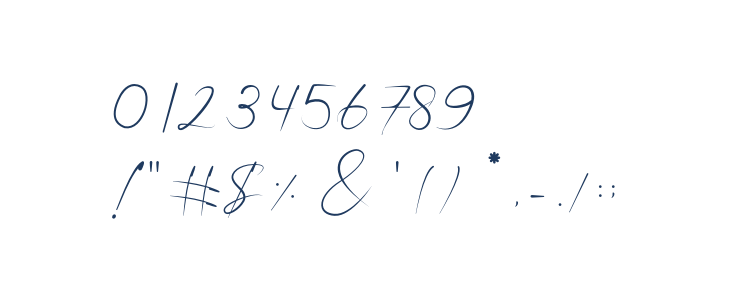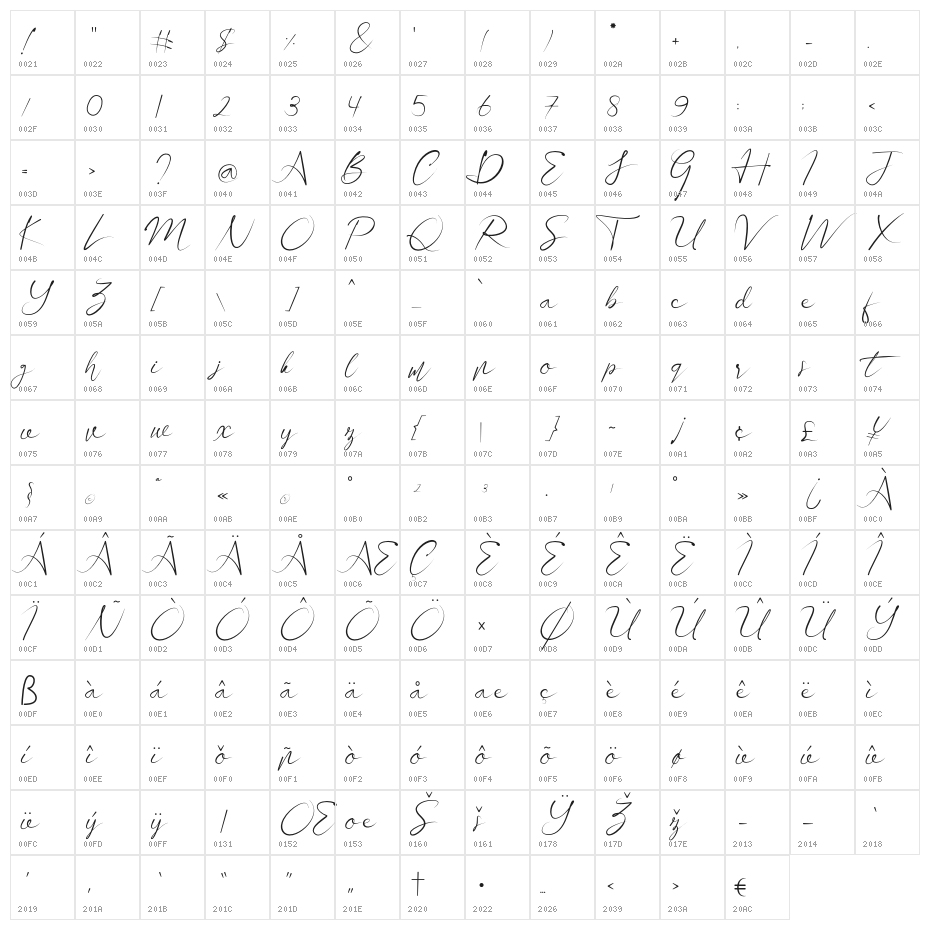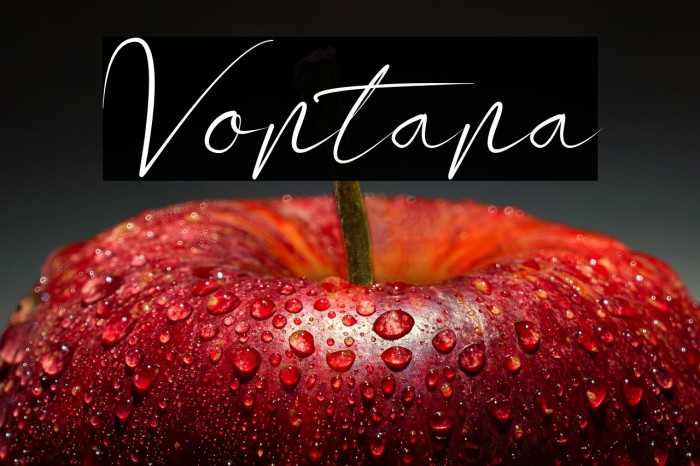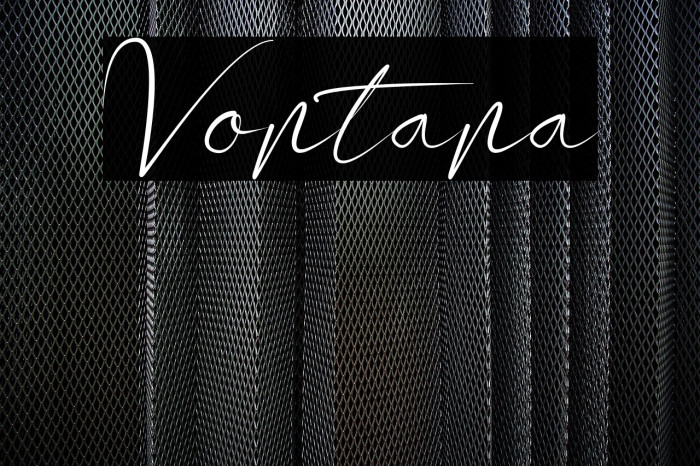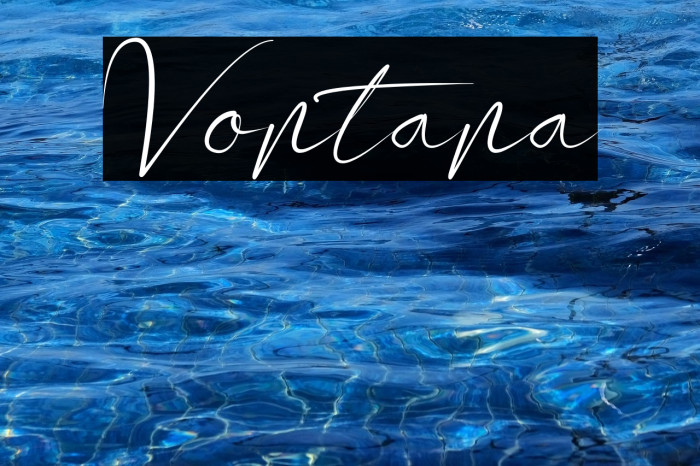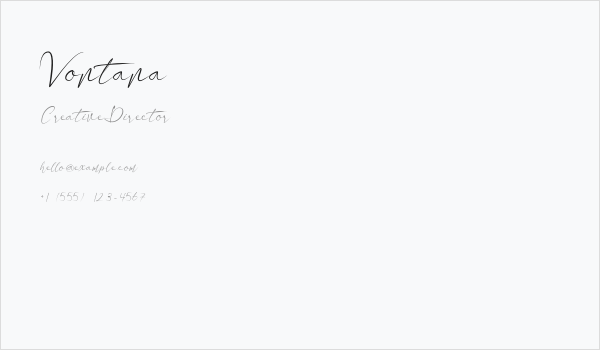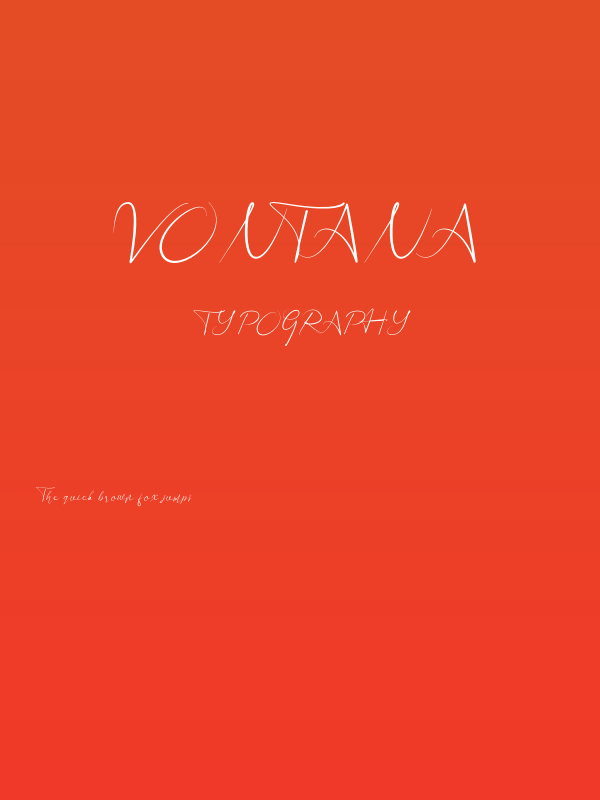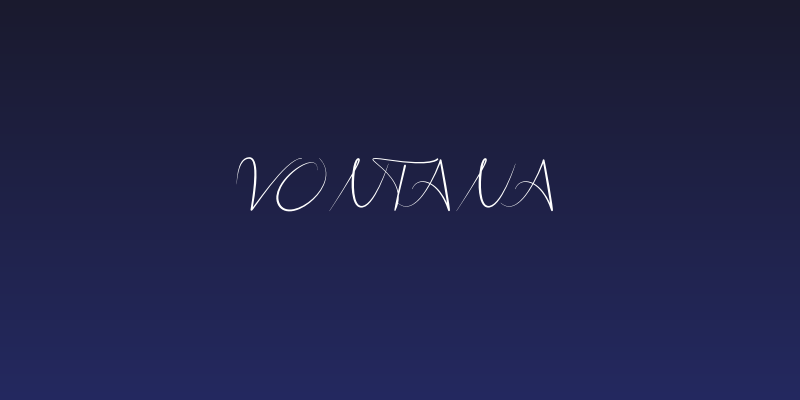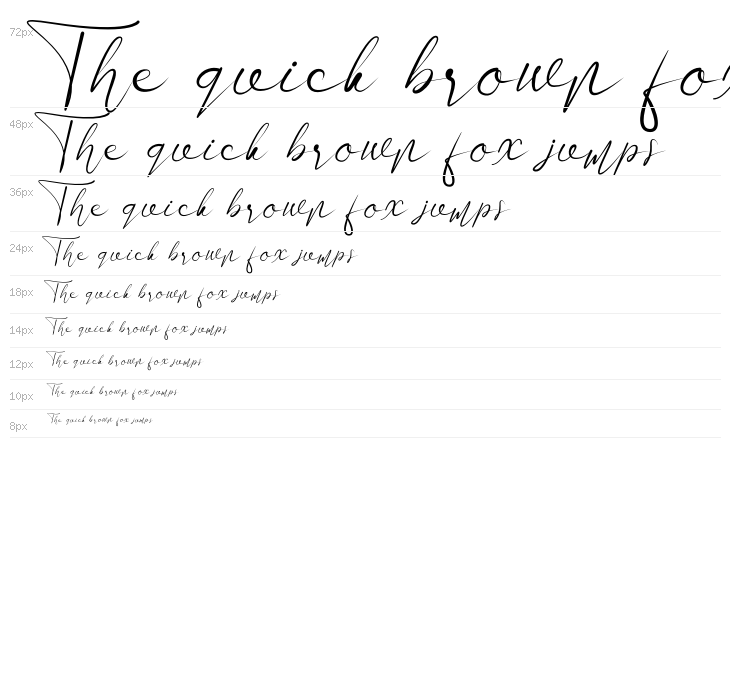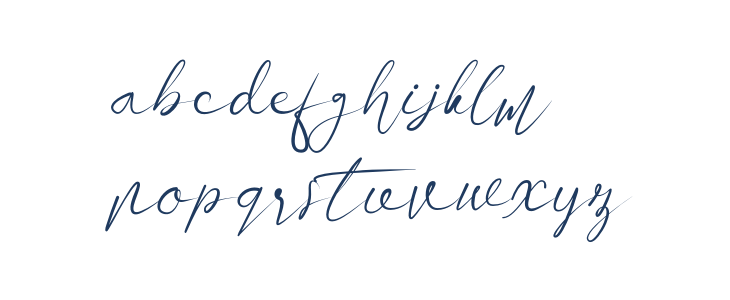
Vontana Font
Vontana Description
This font exudes elegance and fluidity, characterized by its cursive, handwritten style. The letters are connected with smooth, flowing strokes, giving it a natural and organic feel. The uppercase letters are slightly more structured, while the lowercase letters exhibit a more freeform, artistic flair. The numerals and special characters maintain the same flowing style, ensuring consistency across all characters. This font is perfect for projects that require a personal touch, such as invitations, greeting cards, or branding materials. Its delicate lines and graceful curves make it ideal for conveying sophistication and creativity.
Overall StyleElegant, Artistic
Use CaseHeadlines, Invitations, Branding
Proposed ProjectsIdeal for wedding invitations, personal branding, greeting cards, and artistic projects.